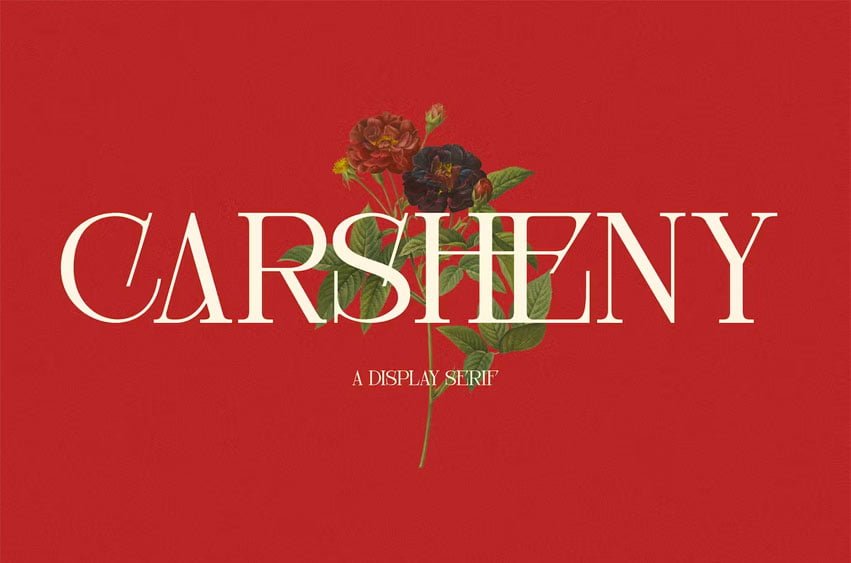
Carsheny Font is an art deco inspired with dramatically elongated serif. With its clean and modern feel, Nightingale will definitely adds elegance when used.